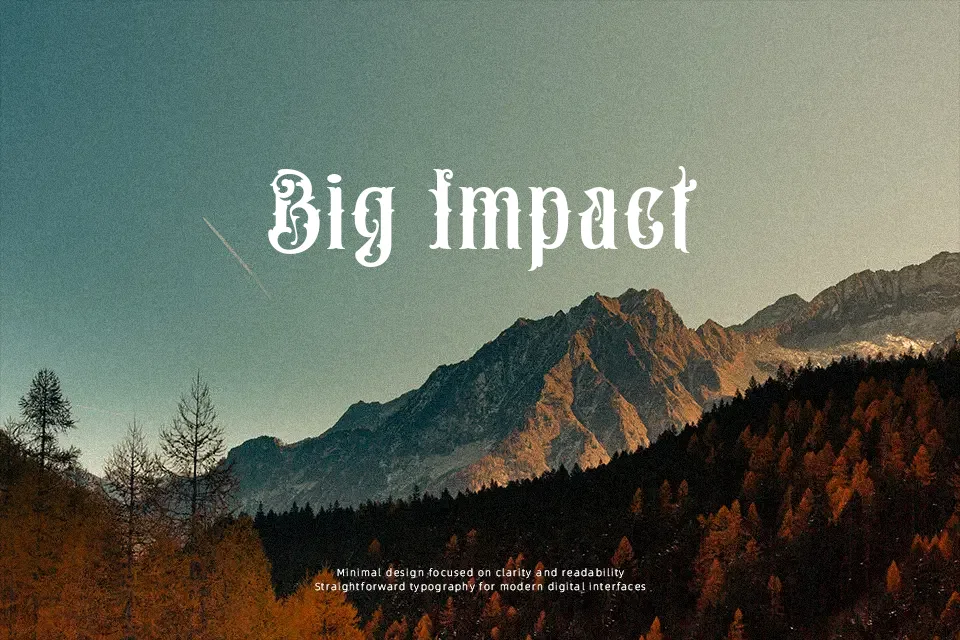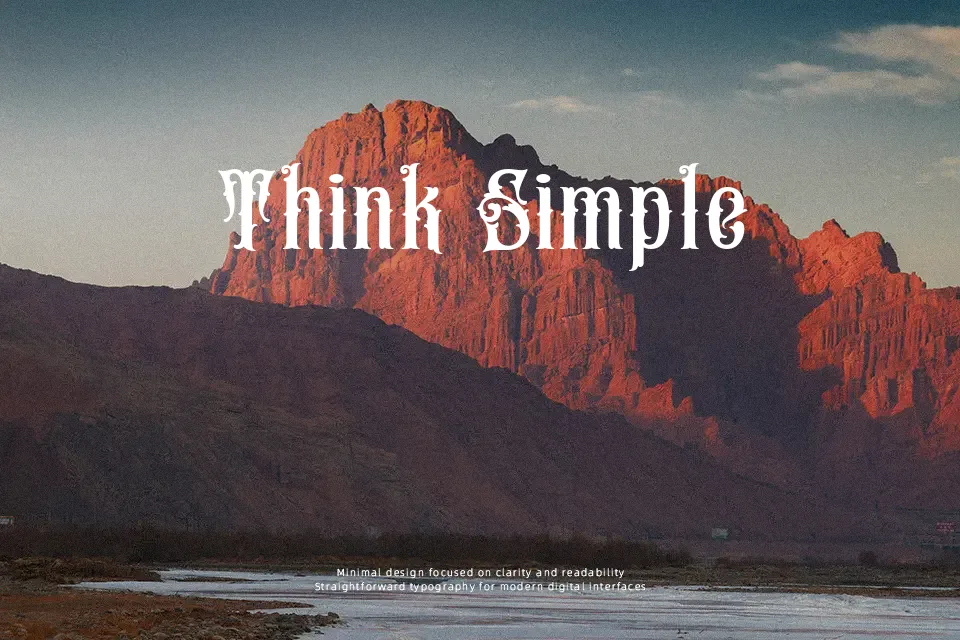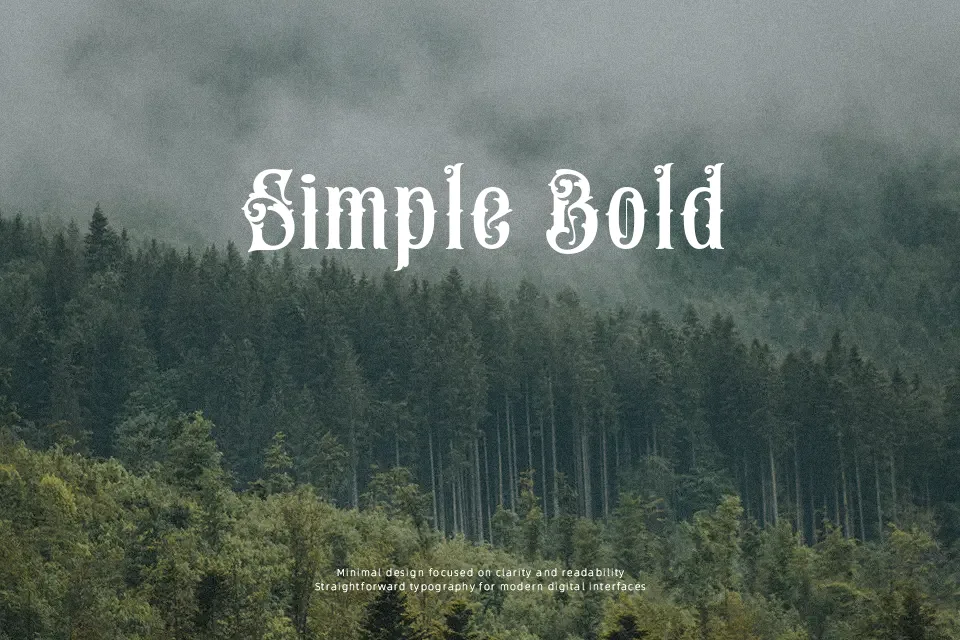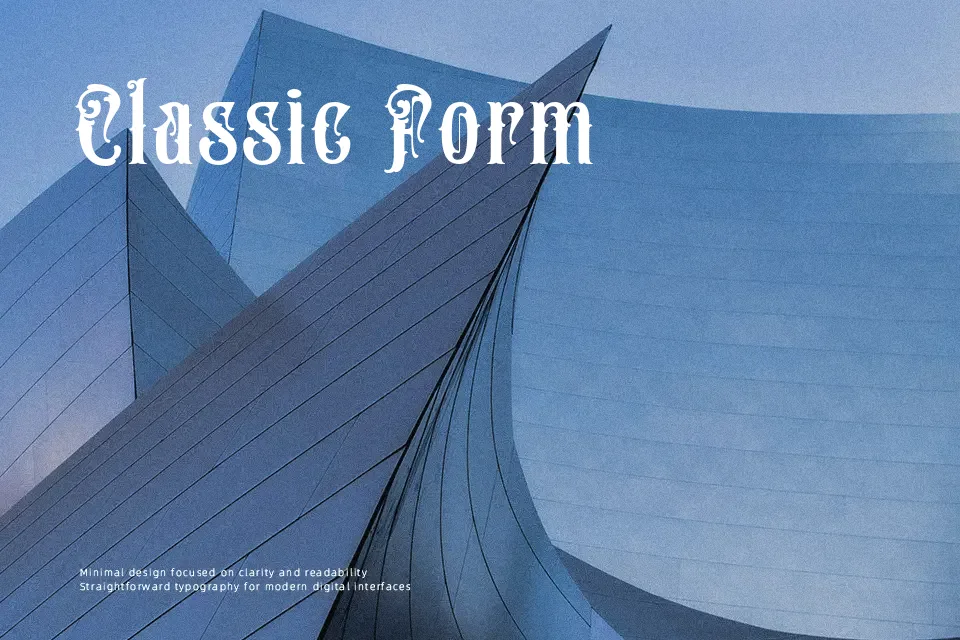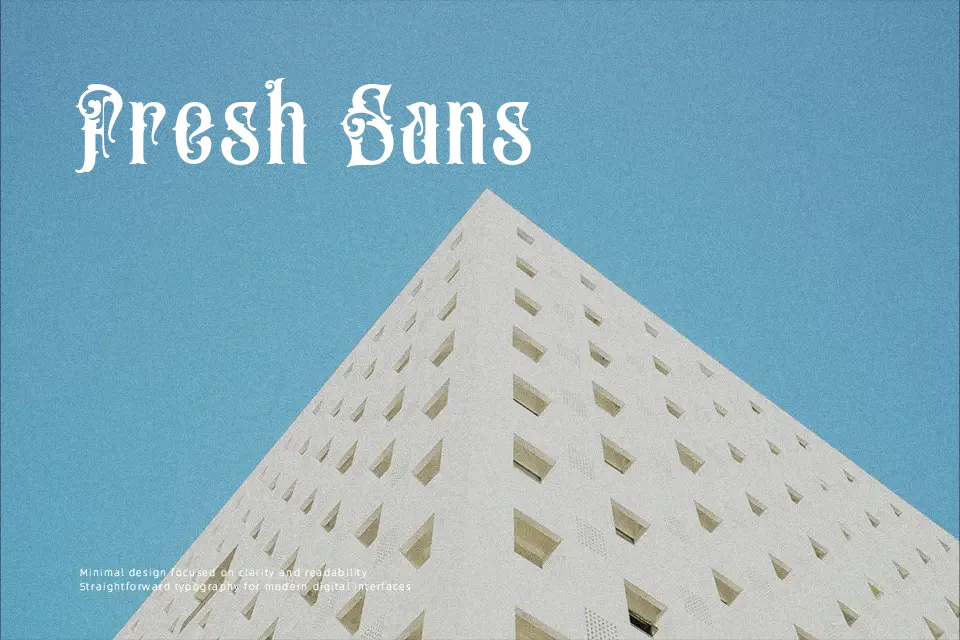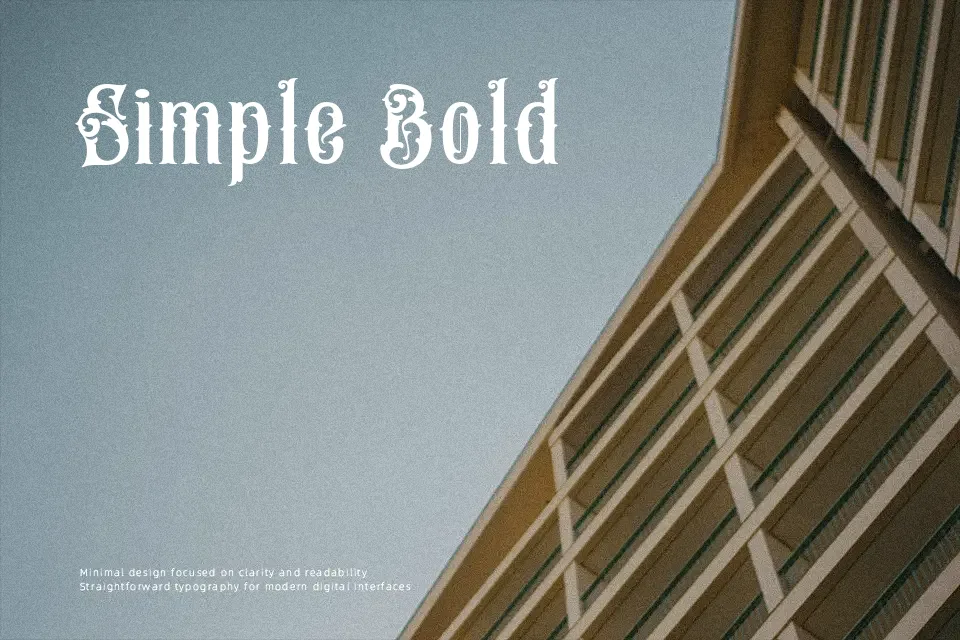
Brick Stone Font
Brick Stone Font is a highly ornamented vintage display typeface with dense strokes, tight spacing, and layered curves that echo Victorian and western-era lettering. Its letters feel heavy and structured, with decorative terminals, swashes, and alternates that build a rich, almost engraved look in headlines and logos. This style shines on craft beverage labels, barber shop branding, themed restaurant menus, event posters, and any project that leans into retro Americana or old-world signage. Because the shapes are complex and the texture is busy, it can overwhelm small body text or minimalist interfaces, so it’s better reserved for short, intentional phrases rather than long reading passages.
vintage beverage or liquor labels and packaging
retro restaurant or bar logos and signage
event posters and flyers with a western or Victorian theme
branding for barbershops, tattoo studios, or heritage-inspired shops
long paragraphs or body copy that must stay highly legible
clean, minimalist tech or corporate interfaces
tiny captions or UI elements where ornament hides readability
Perfect for branding, film, and logo, with a artistic and decorative style.